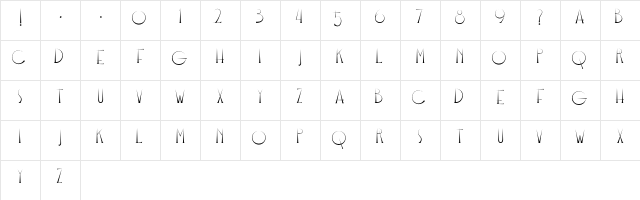
Bangkit Regular
Design Context for Bangkit Typeface
Bangkit is a composed and adaptable typeface that performs quietly and consistently across a wide range of design contexts.
Pro Tip: Use Bangkit in both headline and body roles to test its range before committing to a single application.